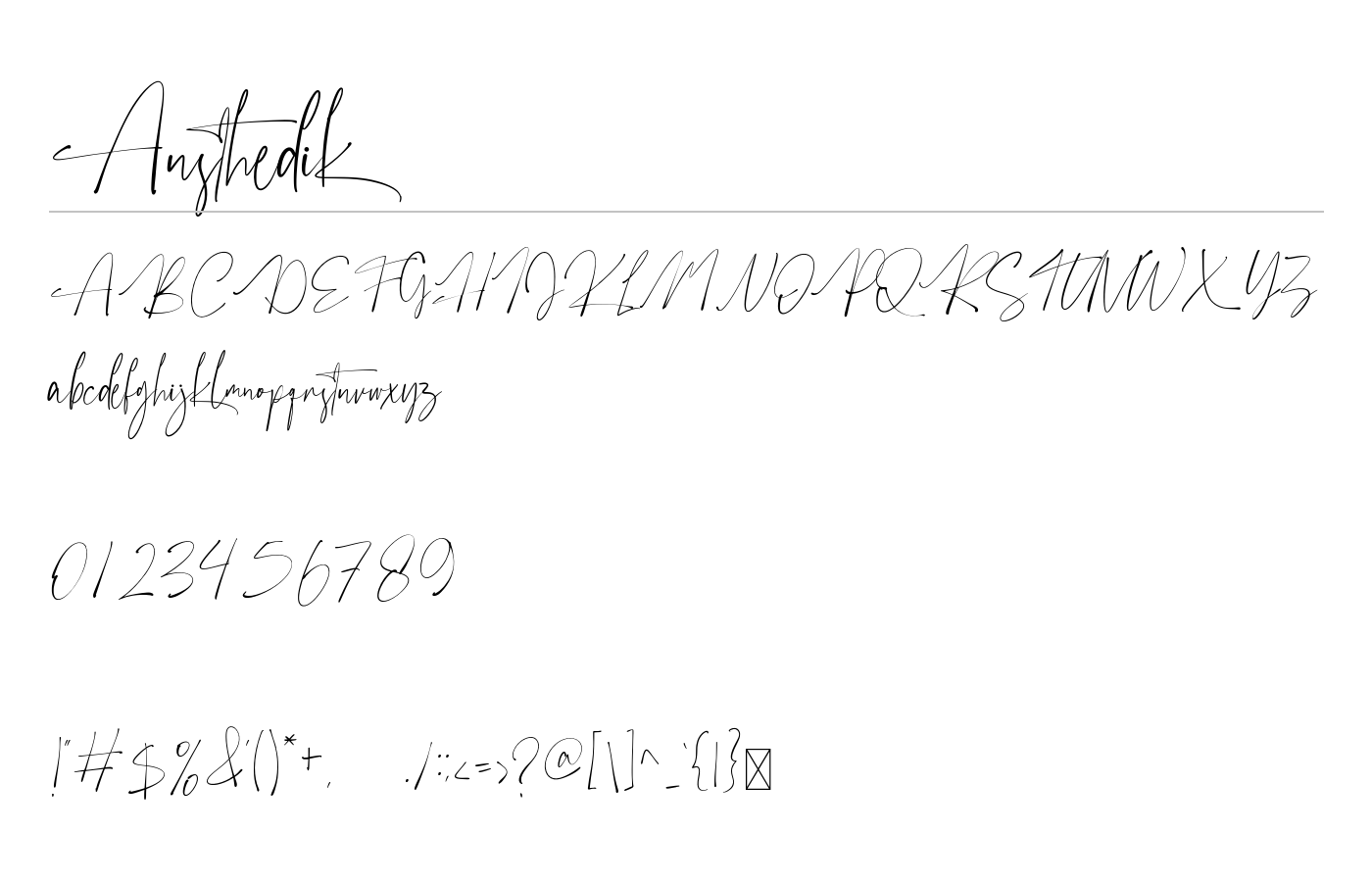
Austhedik is a delicate, handwritten script font that features thin, flowing strokes with a natural, elegant flair. Its tall, slender letterforms and slightly irregular lines give it a personal and artistic touch, making it perfect for wedding invitations, branding, and creative projects that seek a sophisticated yet approachable feel. This font works best in display uses where its fine details can shine, adding charm and personality to any design.
Austhedik Font
| Designer | Candra Hamdani |